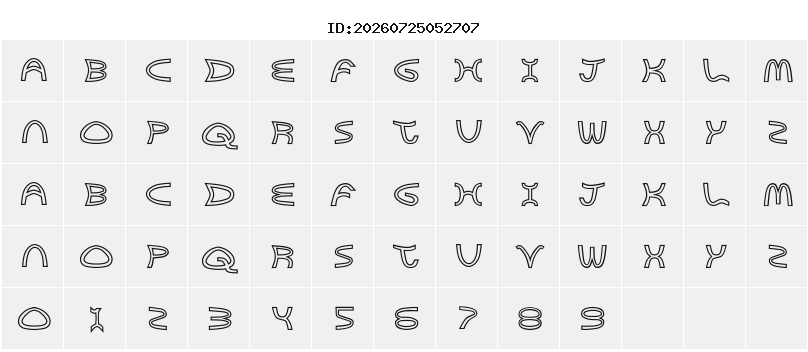
Golden Arches Preview
• Font Name: Golden Arches
• Font ID: Golden Arches
• Full Font Name: Golden Arches
• Version: Mary
• PostScript Name: GoldenArches
About Golden Arches.ttf
Golden Arches.ttf is a modern, elegant sans-serif font designed for ultimate readability and visual harmony. Perfect for branding, headlines, web design, and print materials.